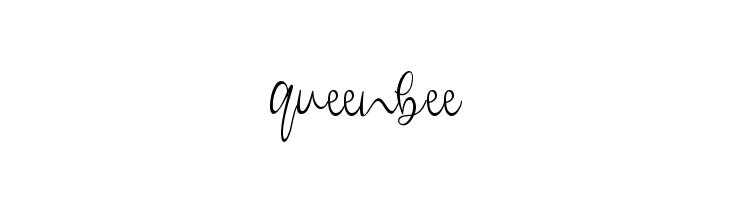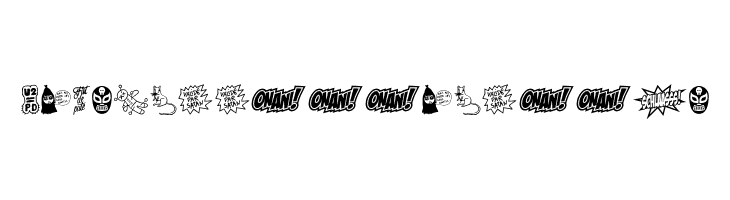
A bold, blocky font with thick strokes and a geometric structure, perfect for impactful designs.
A pixelated, retro-style font with a digital, blocky appearance.
A bold, italic, and angular font with a futuristic style.
An elegant script font with flowing, interconnected cursive letters.
An industrial-themed font with characters resembling interconnected pipes.
A playful, handwritten font with bold, rounded letters and a slight slant.
A whimsical and eclectic dingbat collection with comic and pop culture motifs.
A bold, hand-drawn font with a playful and irregular style.
A spooky, gothic font with elongated, ghostly characters.
A whimsical, decorative font with a playful, hand-drawn style.